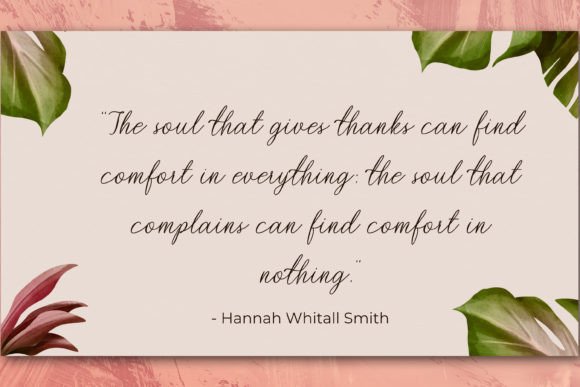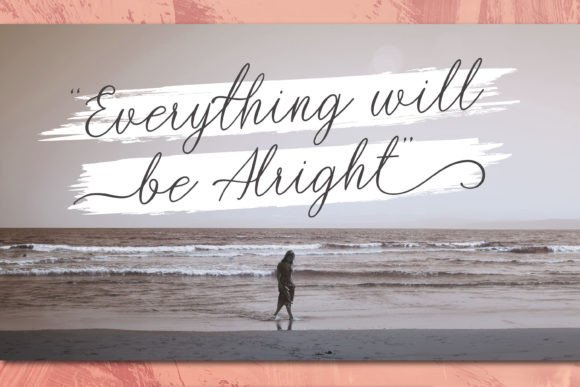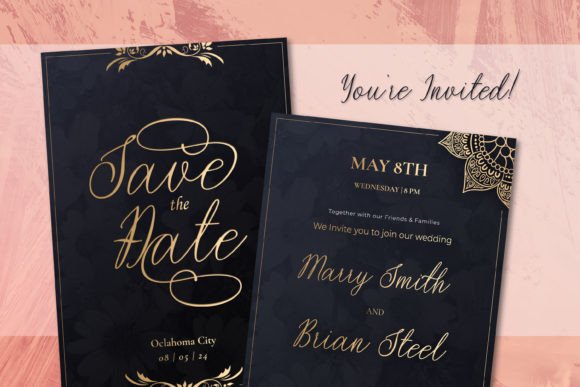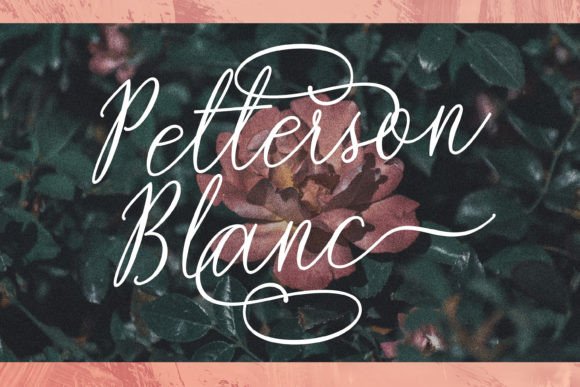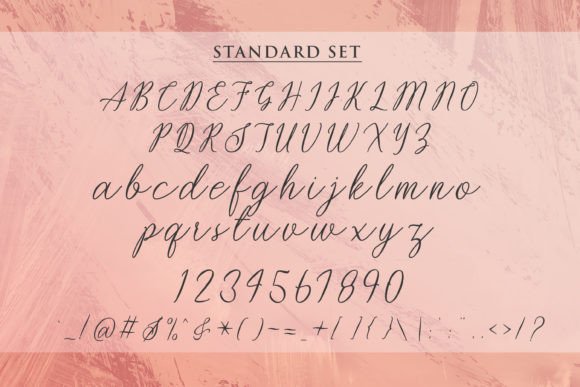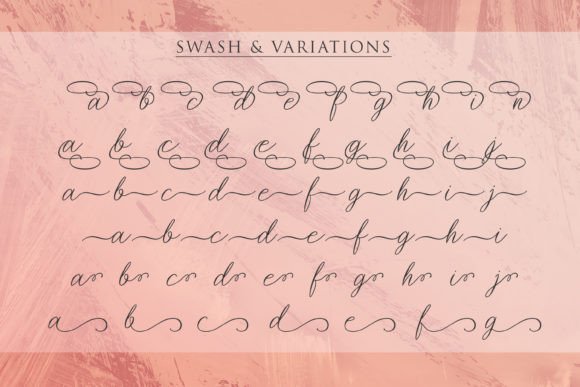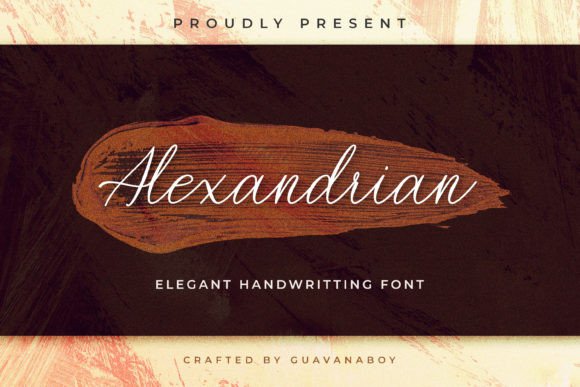
Alexandrian Font – A Modern Elegant Handwritten Font Perfect for Creative Projects
In the world of typography, fonts play a crucial role in conveying messages, expressing emotions, and creating a lasting impression. For designers, crafters, and marketers, finding the right font can be a daunting task. However, if you’re looking for a modern, elegant, and versatile font, look no further than the Alexandrian Font. In this article, we’ll explore the features, benefits, and uses of the Alexandrian Font, and why it’s perfect for various creative projects.
What is Alexandrian Font?
Alexandrian Font is a beautifully crafted, handwritten font that exudes elegance, sophistication, and modernity. Its smooth, flowing lines and curves make it perfect for a wide range of applications, from social media and advertisements to logos, branding, and more. The font’s unique and distinctive style sets it apart from other fonts, making it an excellent choice for designers and crafters looking to add a touch of personality to their projects.
Key Features of Alexandrian Font
- Modern and Elegant: The Alexandrian Font boasts a contemporary and refined aesthetic, making it ideal for projects that require a touch of sophistication.
- Handwritten: The font’s handwritten style gives it a personal and human touch, perfect for creating a connection with your audience.
- Versatile: The Alexandrian Font is highly versatile and can be used for various projects, including social media, advertisements, logos, branding, and more.
- Easy to Read: The font’s clear and legible design ensures that your message is conveyed effectively, making it perfect for body text and headings.
Perfect for Various Creative Projects
The Alexandrian Font is an excellent choice for a wide range of creative projects, including:
- Social Media: Elevate your social media presence with the Alexandrian Font, perfect for creating engaging posts, stories, and captions.
- Advertisements: Grab attention and convey your message effectively with the font’s modern and elegant style.
- Instagram: Stand out on Instagram with the Alexandrian Font, ideal for creating visually appealing posts, stories, and reels.
- Logos and Branding: Create a lasting impression with the font’s unique and distinctive style, perfect for logos, branding, and identity design.
- Signs, Crafting, Mugs, Shirts, Labels, and Stickers: Add a touch of elegance to your crafts, products, and merchandise with the Alexandrian Font.
- Business Cards, Greeting Cards, and Posters: Create professional and eye-catching designs for business cards, greeting cards, and posters.
- Planner Prints and Websites: Use the Alexandrian Font to add a touch of sophistication to your planner prints, websites, and online platforms.
Why Choose Alexandrian Font?
With so many fonts available, why choose the Alexandrian Font? Here are a few reasons:
- Unique and Distinctive: The Alexandrian Font’s unique style sets it apart from other fonts, ensuring your designs stand out.
- Elegant and Modern: The font’s elegant and modern aesthetic makes it perfect for projects that require a touch of sophistication.
- Highly Versatile: The Alexandrian Font can be used for a wide range of projects, making it a valuable addition to your font library.
In conclusion, the Alexandrian Font is a modern, elegant, and versatile font perfect for various creative projects. Its unique and distinctive style, combined with its ease of use and high versatility, make it an excellent choice for designers, crafters, and marketers. Whether you’re looking to elevate your social media presence, create stunning advertisements, or add a touch of elegance to your crafts and products, the Alexandrian Font is an excellent choice.